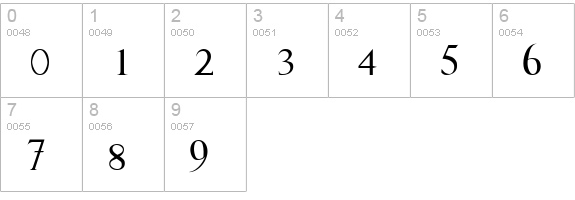
FrankTimes Medium is a balanced, medium-weight variant in the FrankTimes typeface family \xE2\x80\x94 well suited to sub-headlines, navigation, and balanced editorial work.
FrankTimes Medium font is a versatile and elegant typeface that combines classic and modern elements. With its balanced proportions and clear lines, this font is perfect for a wide range of design projects, from branding to editorial design. The medium weight of FrankTimes provides a perfect balance between readability and visual impact, making it suitable for both headlines and body text. What sets FrankTimes Medium apart is that it is available for free download at FontsMarket.com. This means that designers and creatives can easily access and use this high-quality font in their projects without any cost. Whether you're working on a website, poster, or logo design, FrankTimes Medium offers a sophisticated and professional look that will elevate your work. Download FrankTimes Medium today and add a touch of timeless elegance to your designs.